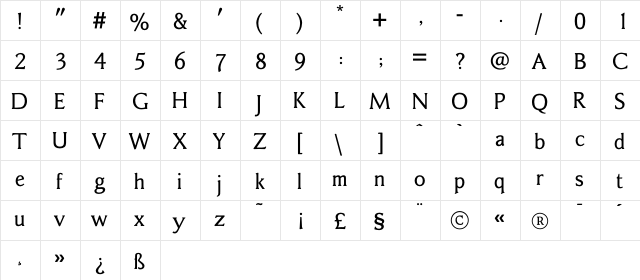
ChaseMed Regular
Design Context for ChaseMed Typeface
ChaseMed takes a measured approach to typography — its balanced proportions and neutral character make it a reliable workhorse for both digital and print work.